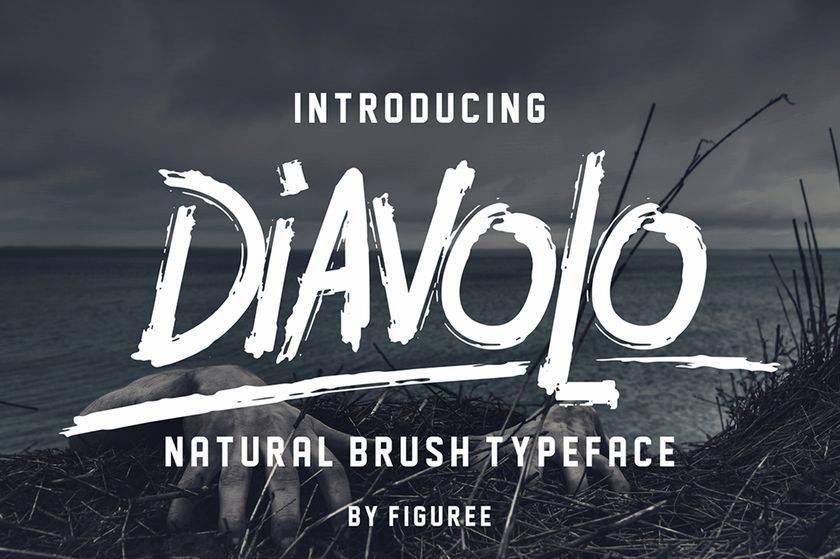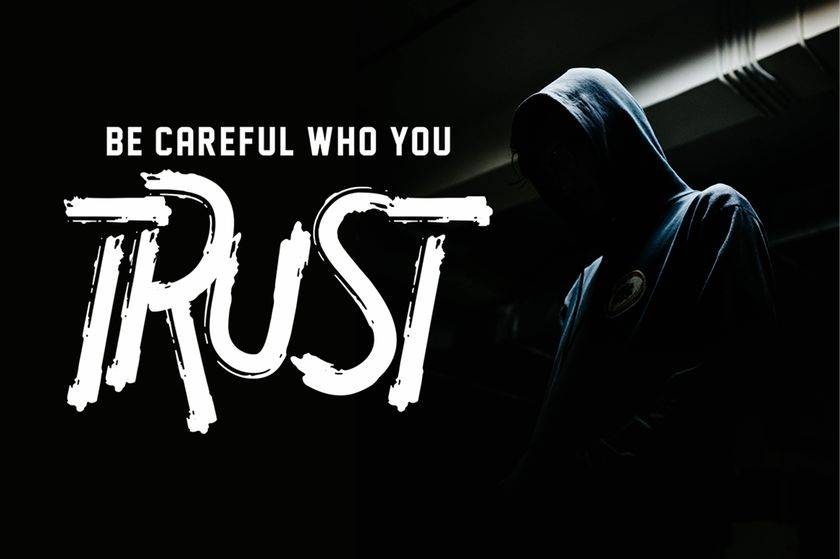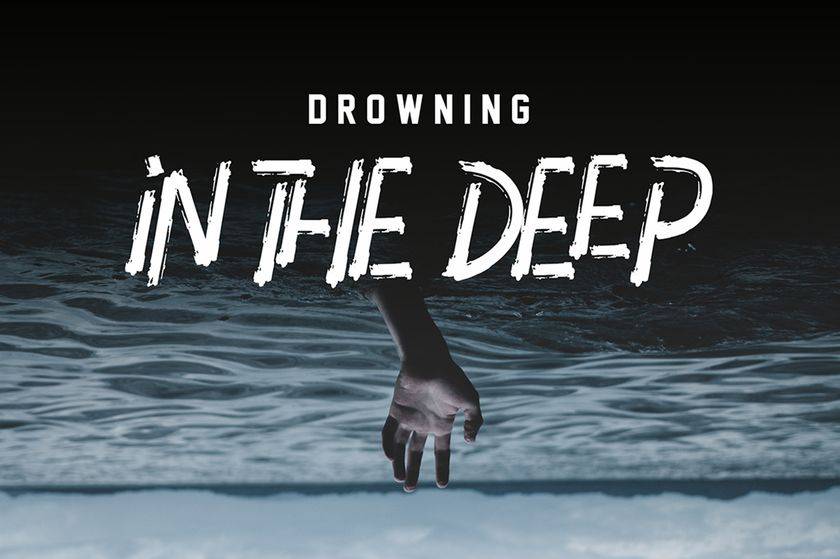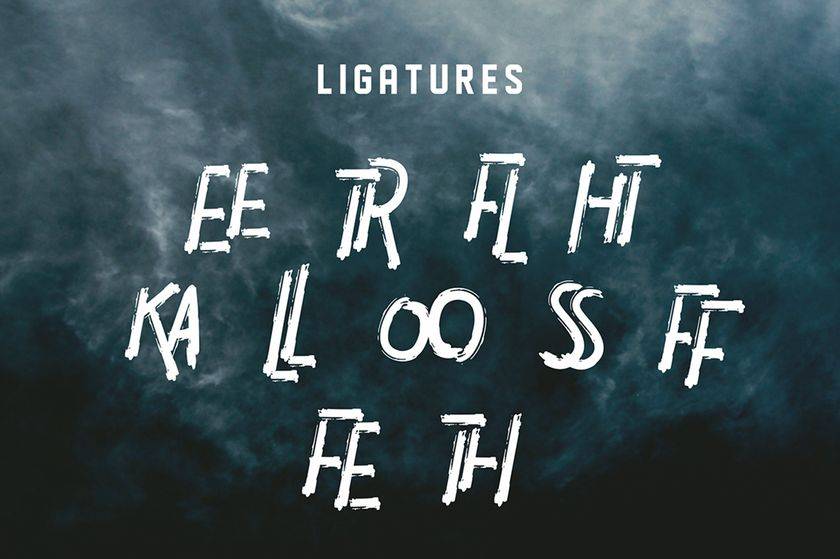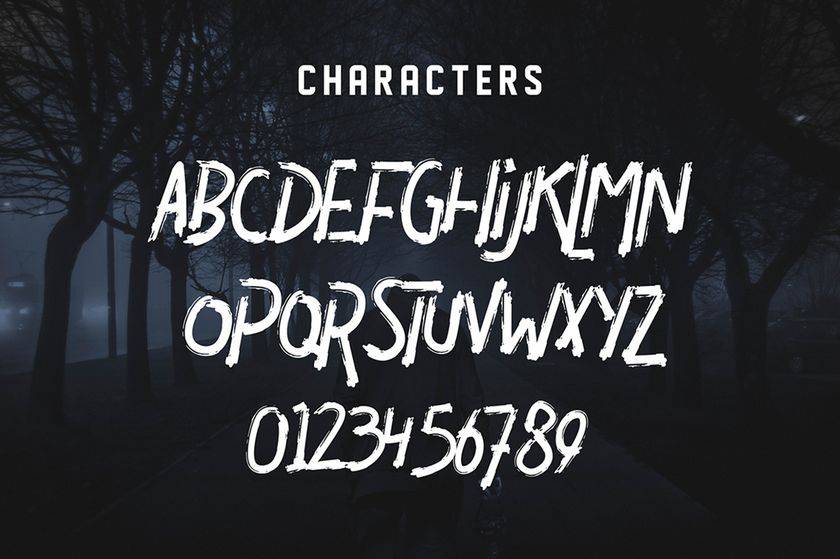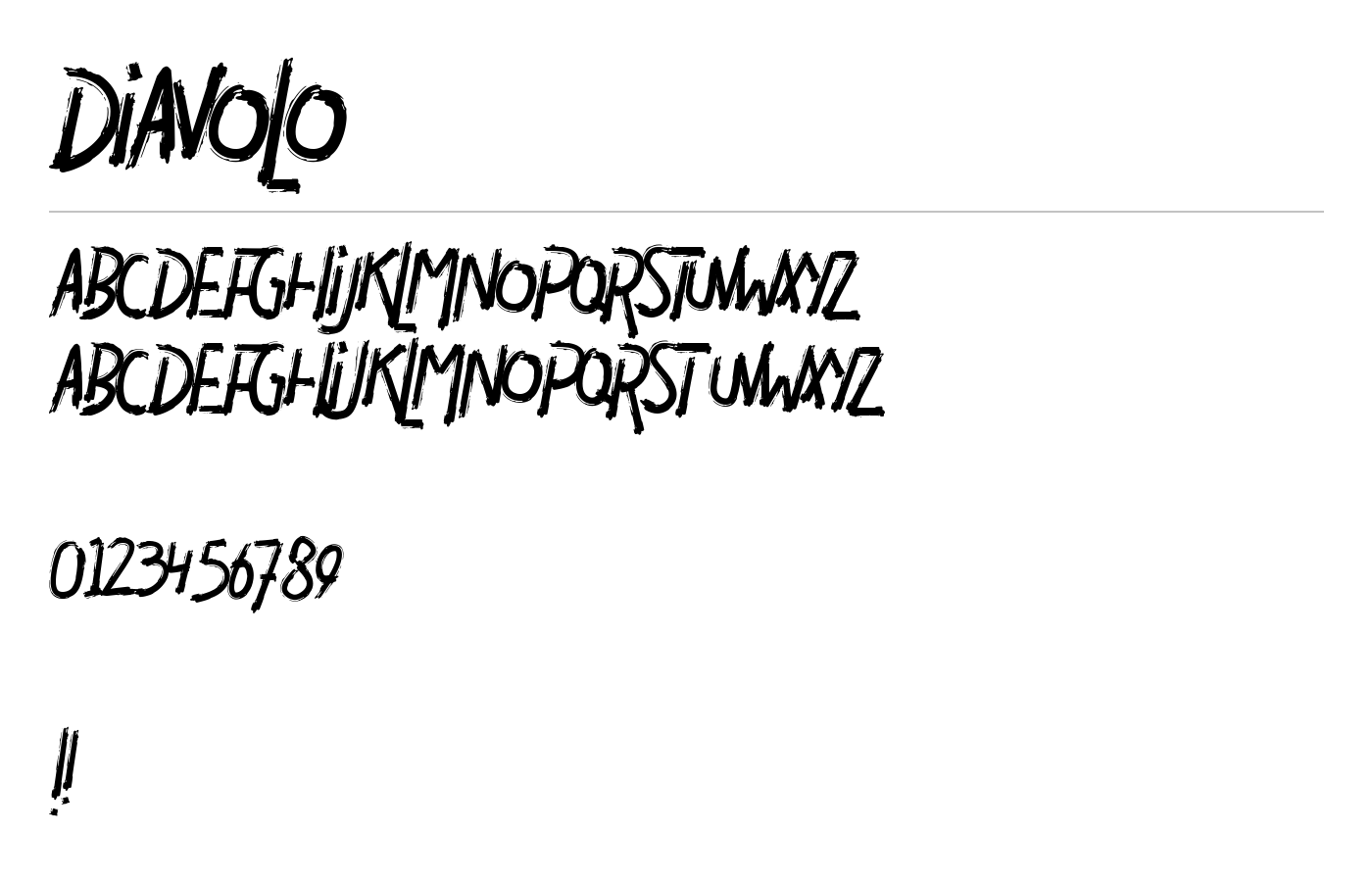
Diavolo is a bold, expressive handwritten font with a rough, brushstroke texture that gives it a dynamic and edgy feel. Its tall, narrow letterforms and slightly irregular shapes make it perfect for attention-grabbing headlines, posters, or creative brand identities looking to convey energy and individuality. This font works well in designs that seek a raw, artistic vibe rather than polished formality.
Diavolo Font
About Diavolo Font